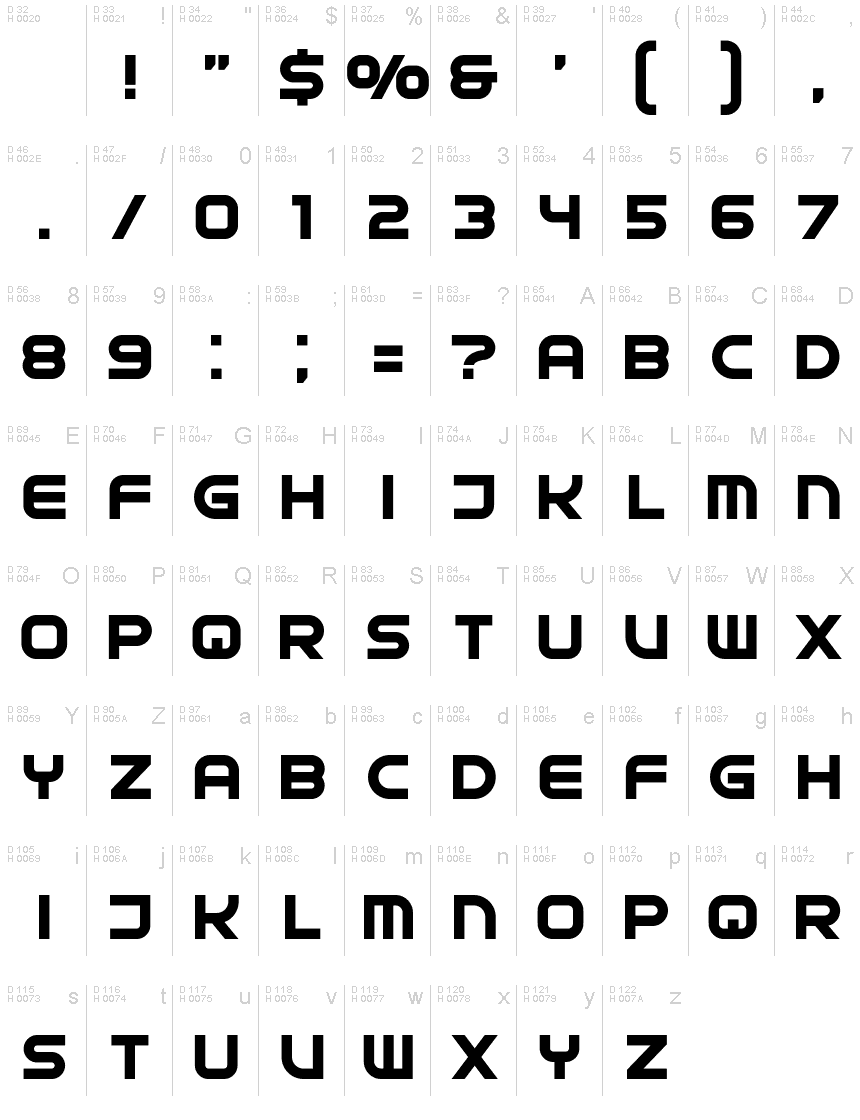
Hard Days Regular
Hard Days is a bold and expanded sans serif font designed by Vladimir Nikolic. With its clean lines and strong presence, it's perfect for projects that require a bold statement, such as website headers, branding materials, and advertising campaigns. This typeface is suitable for various design projects, including corporate branding, poster design, packaging design, and more. Its unique combination of width and weight immediately captures attention and ensures your message will be noticed. Hard Days font will give your designs an edgy look while maintaining legibility. With its boldness and expansiveness, Hard Days is the perfect choice for projects that demand attention!